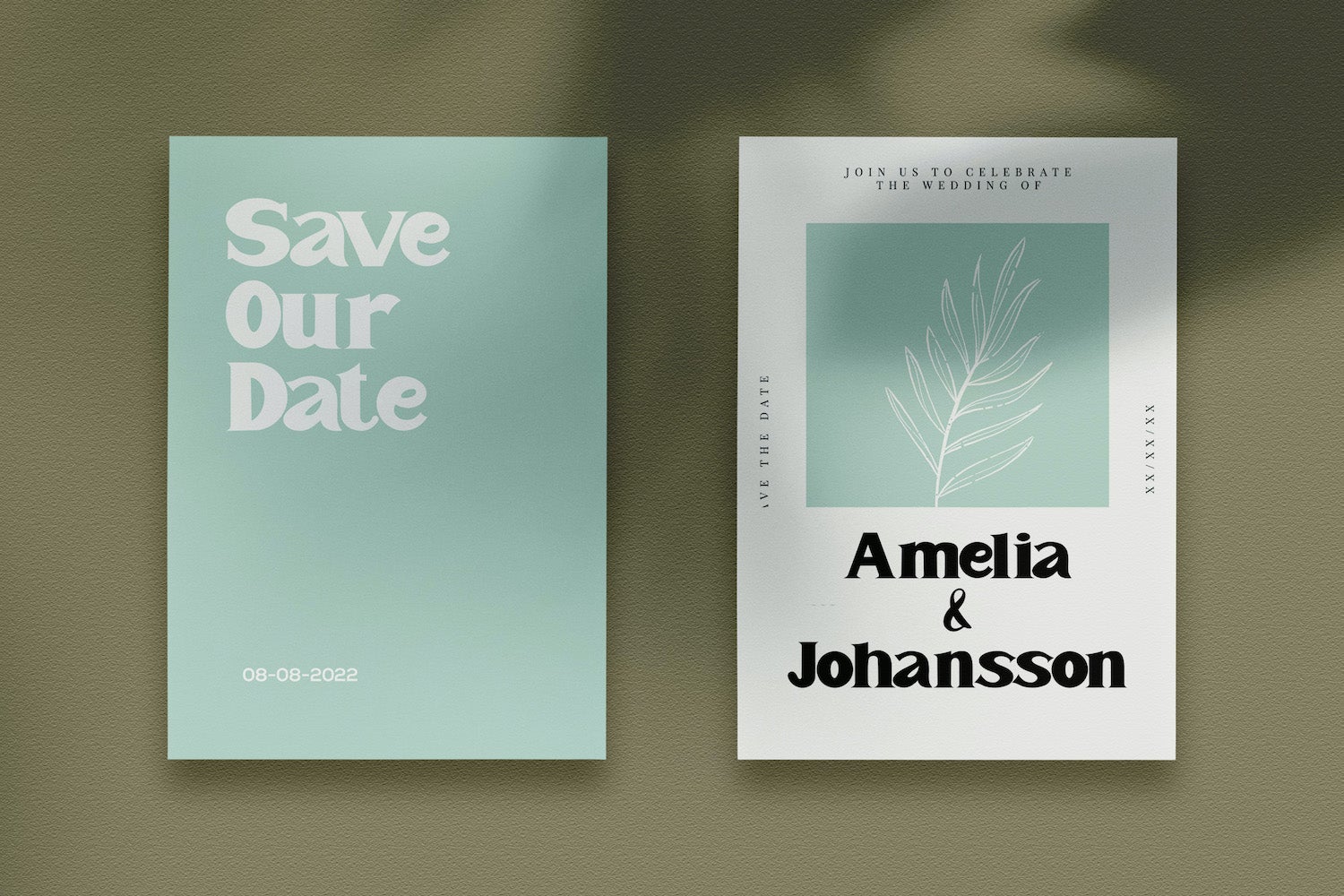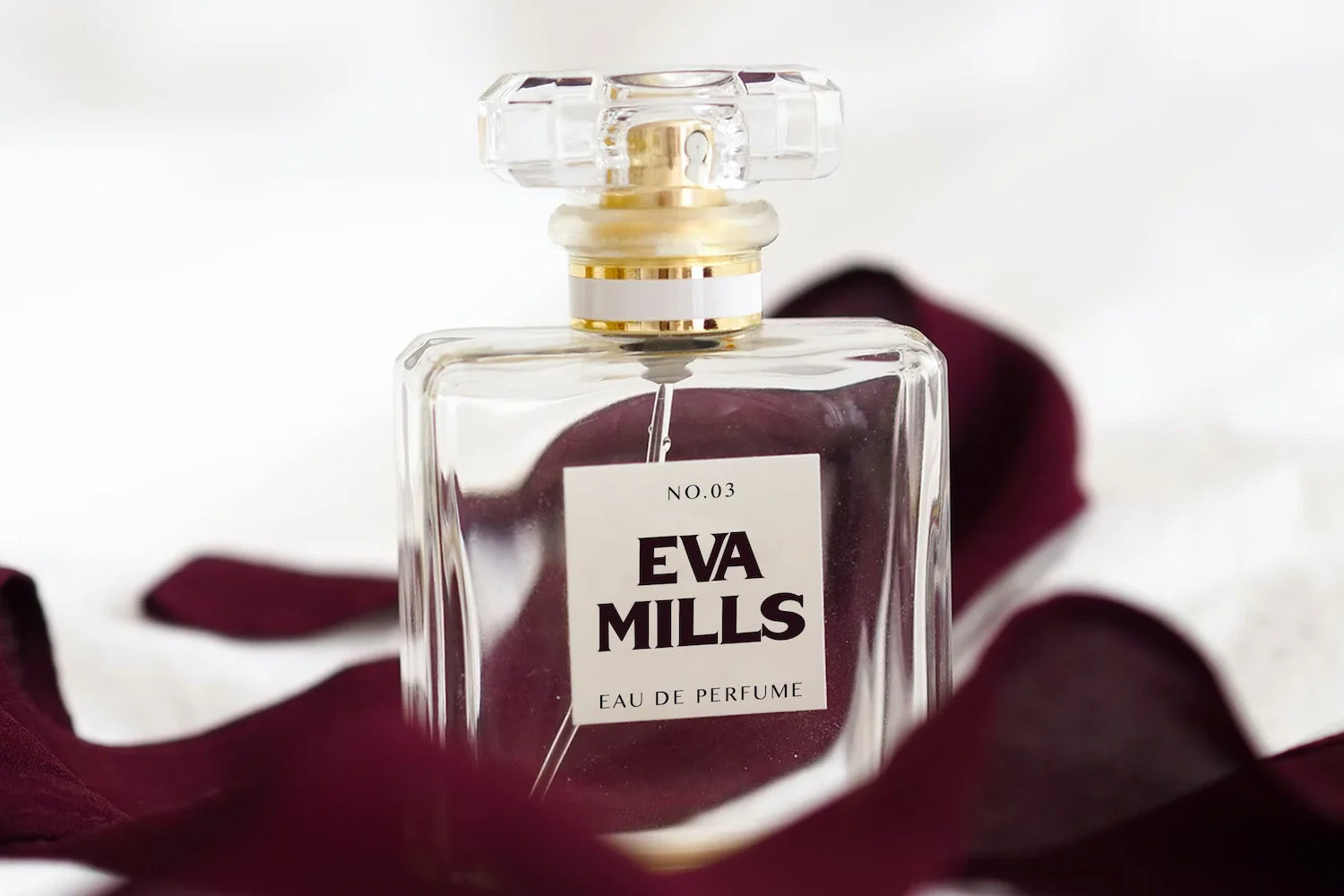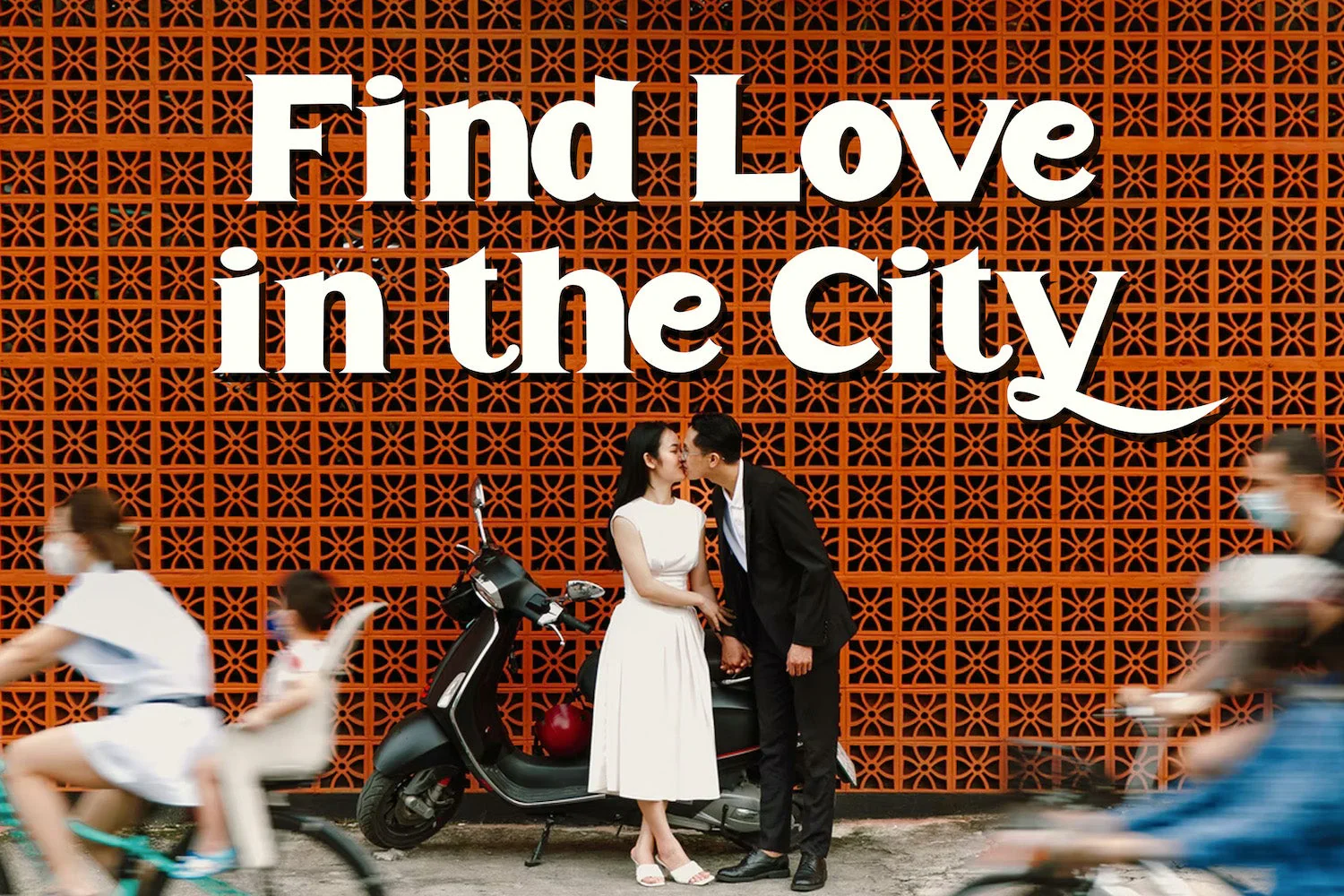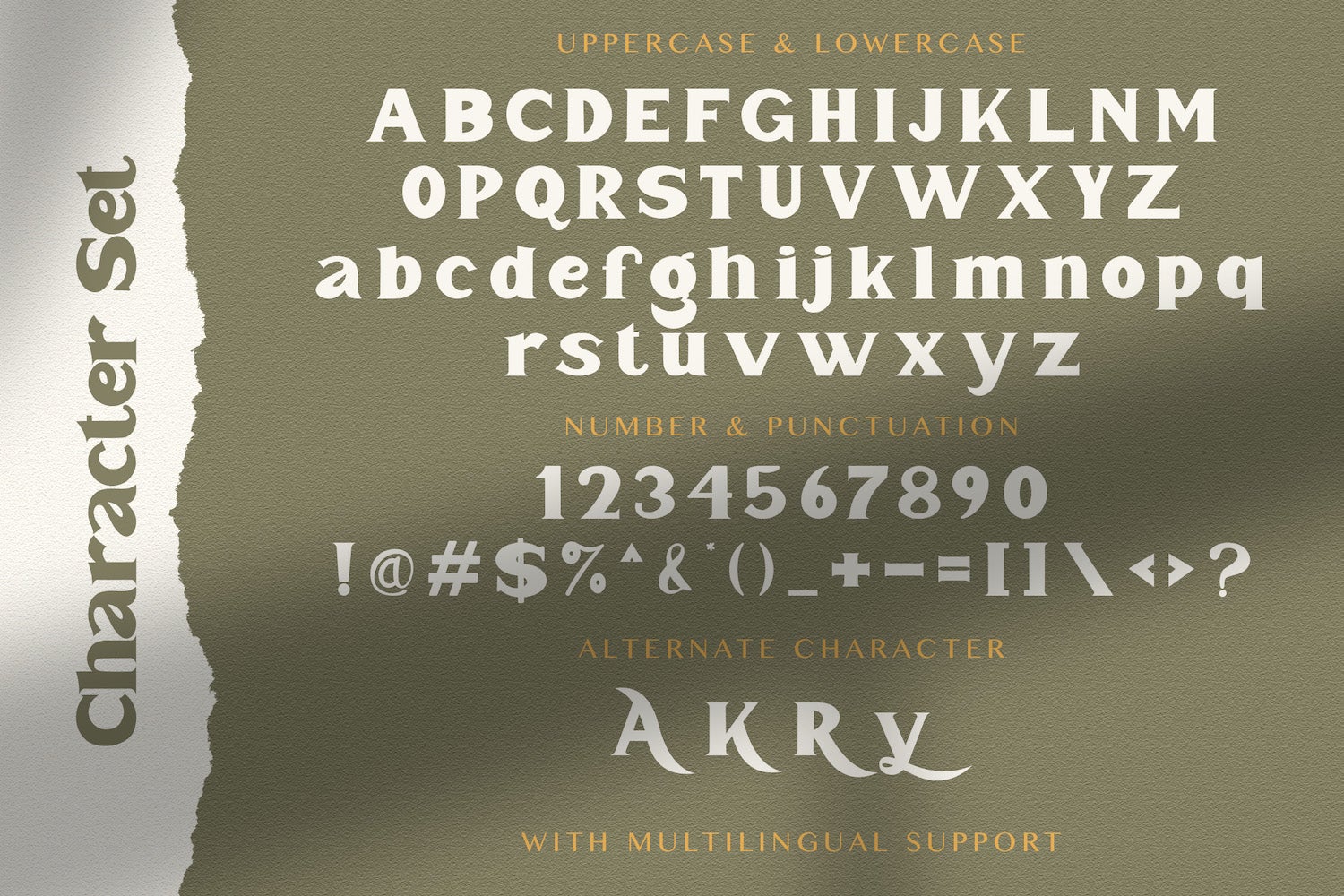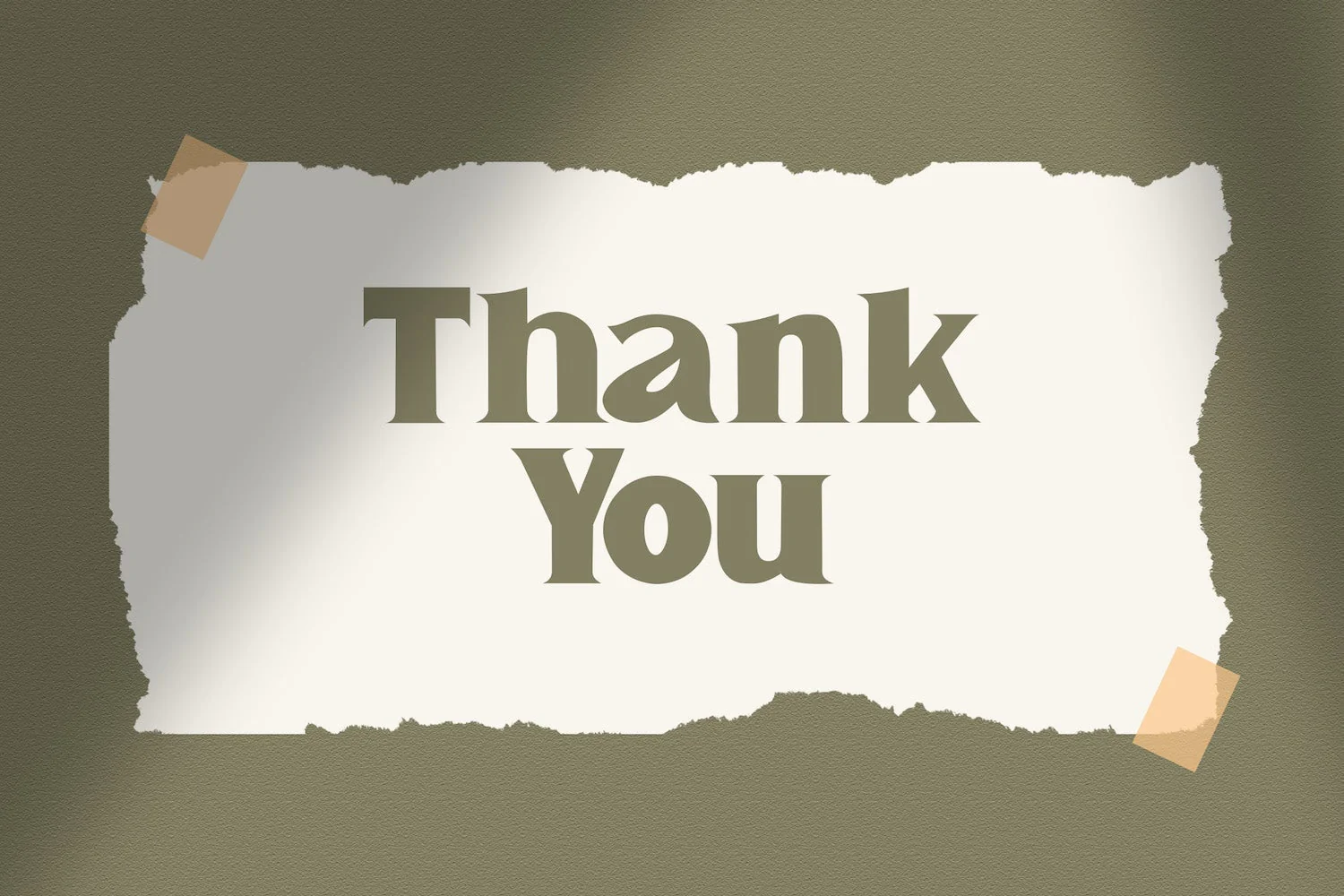
Mister Saefudin - Elegant Serif Font
Introducing Mister Saefudin - Elegant Serif Font
Mister Saefudin is an authentic and display serif font. It can easily be matched to an incredibly large set of projects, so add it to your creative ideas and notice how it makes them stand out!